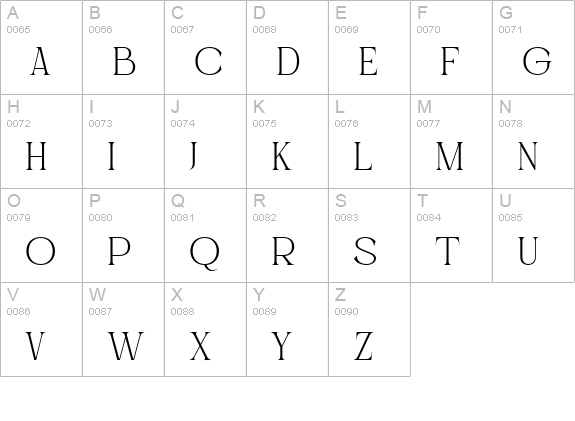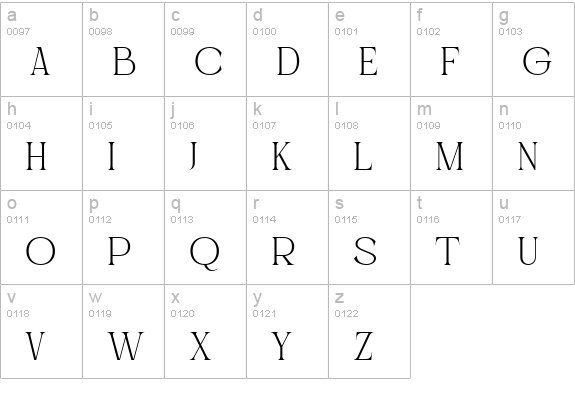
Brown Casalova font is a modern and stylish typeface that exudes elegance and sophistication. With its sleek lines and unique design, this font is perfect for a wide range of projects, from branding to print materials to web design. The versatility of Brown Casalova makes it a popular choice among designers looking to add a touch of class to their creations.